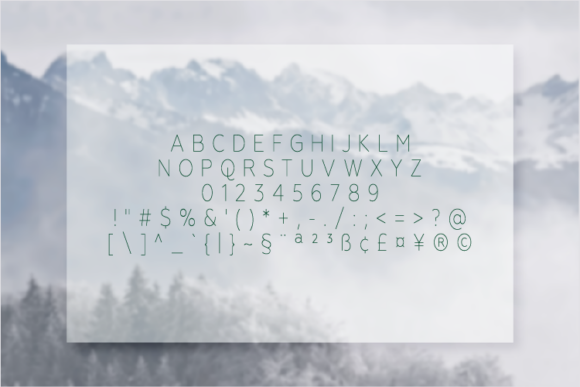
Introducing Allovoneue Thin Font: A Fresh Take on Geometric Sans-Serif Typography
In the world of typography, fonts play a crucial role in conveying messages, expressing creativity, and setting the tone for a brand or design. For designers and crafters, finding the perfect font can be a daunting task. However, if you’re looking for a fresh, geometric, and versatile sans-serif font, look no further than Allovoneue Thin Font. In this article, we’ll dive into the features, benefits, and uses of Allovoneue, and explore why it’s a great addition to your typography arsenal.
What is Allovoneue Thin Font?
Allovoneue is a modern, geometric sans-serif font family that boasts geometrical letterforms, sharp edges, and minimal stroke contrast. Inspired by neo-grotesk fonts from the 20th century, Allovoneue brings a new level of sophistication and elegance to the world of typography. Its clean lines, precise curves, and balanced proportions make it an excellent choice for a wide range of design applications.
Key Features of Allovoneue Thin Font
• Geometric design: Allovoneue’s letterforms are constructed from basic geometric shapes, giving it a fresh and modern look.
• Sharp edges: The font’s sharp edges add a touch of sophistication and precision to your designs.
• Minimal stroke contrast: Allovoneue’s minimal stroke contrast creates a clean and elegant appearance, perfect for body text and headlines.
• Versatility: This font family is suitable for a wide range of design applications, including magazines, posters, branding, and more.
Benefits of Using Allovoneue Thin Font
So, why should you choose Allovoneue Thin Font for your next design project? Here are just a few benefits:
• Legibility: Allovoneue’s clear and precise letterforms ensure excellent legibility, even at small font sizes.
• Flexibility: The font’s versatility allows you to use it in various design contexts, from digital media to print materials.
• Uniqueness: Allovoneue’s geometric design and sharp edges set it apart from more traditional sans-serif fonts.
• Ease of use: The font’s clean lines and simple shapes make it easy to pair with other fonts and design elements.
Design Applications for Allovoneue Thin Font
Allovoneue Thin Font is an incredibly versatile font family that can be used in a variety of design applications, including:
• Magazines and newspapers: Allovoneue’s legibility and elegance make it perfect for body text and headlines.
• Posters and flyers: The font’s geometric design and sharp edges create eye-catching and memorable posters and flyers.
• Branding and logos: Allovoneue’s unique design makes it an excellent choice for logos, business cards, and other branding materials.
• Digital media: The font’s clean lines and simple shapes ensure excellent readability on digital screens.
Tips for Using Allovoneue Thin Font
To get the most out of Allovoneue Thin Font, here are a few tips:
• Experiment with font sizes: Allovoneue’s legibility and elegance shine at various font sizes, from small body text to large headlines.
• Pair with complementary fonts: Combine Allovoneue with other fonts to create visually appealing and harmonious typography.
• Use bold and italic variations: Allovoneue’s bold and italic variations can add emphasis and create visual interest in your designs.
In conclusion, Allovoneue Thin Font is an exceptional addition to any designer’s typography arsenal. Its geometric design, sharp edges, and minimal stroke contrast make it a versatile and elegant font family suitable for a wide range of design applications. With its excellent legibility, flexibility, and uniqueness, Allovoneue is sure to elevate your designs and help you create stunning visual content.